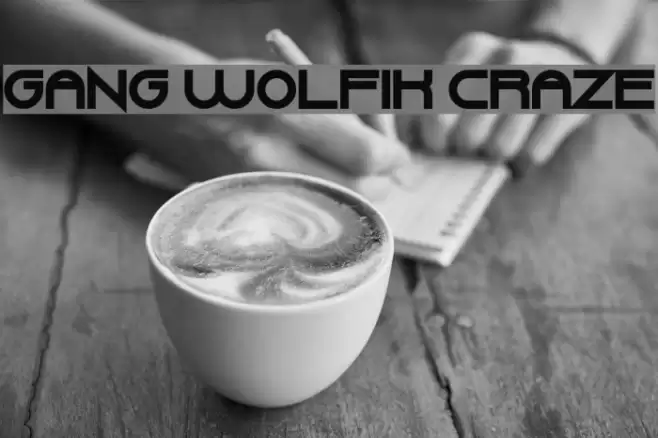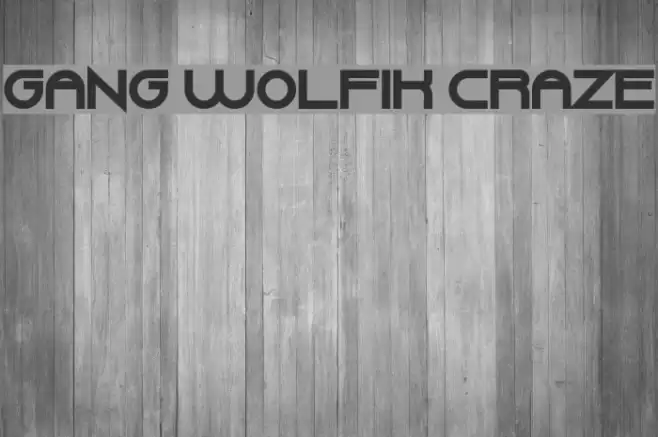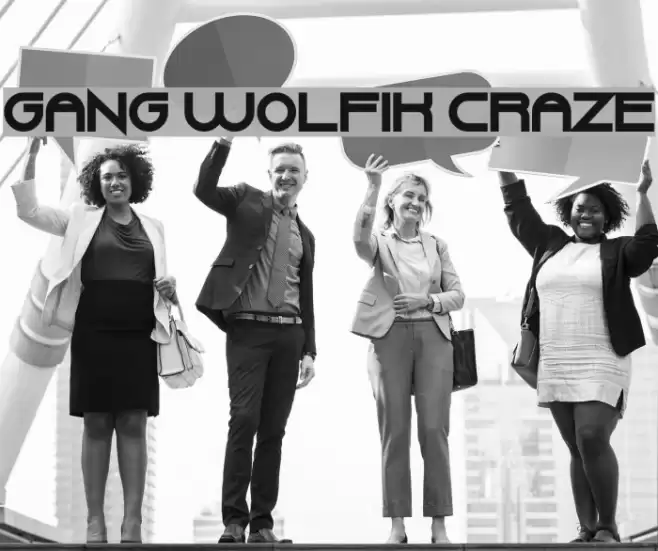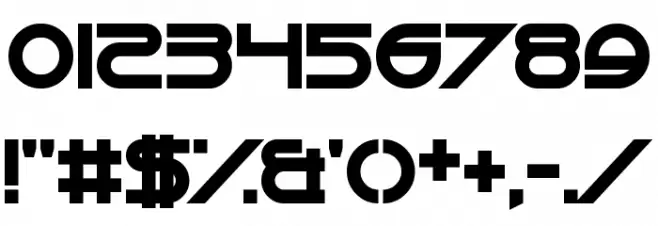
Gang Wolfik Craze Font
Gang Wolfik Craze Description
This font features a bold and geometric design with a futuristic flair. The characters are constructed with clean, straight lines and sharp angles, giving them a modern and edgy appearance. The uppercase letters are uniform in height, while the lowercase letters maintain a consistent style, enhancing readability. The numbers are equally bold, with a distinctive style that complements the alphabet. Special characters are designed to match the overall aesthetic, ensuring a cohesive look across all text elements. The font's unique style makes it suitable for projects that require a strong visual impact.
A bold, geometric font with a futuristic and modern design from Uncategorized fonts.
- Proposed Projects: Ideal for branding, posters, digital media, and any project requiring a modern, impactful typeface.